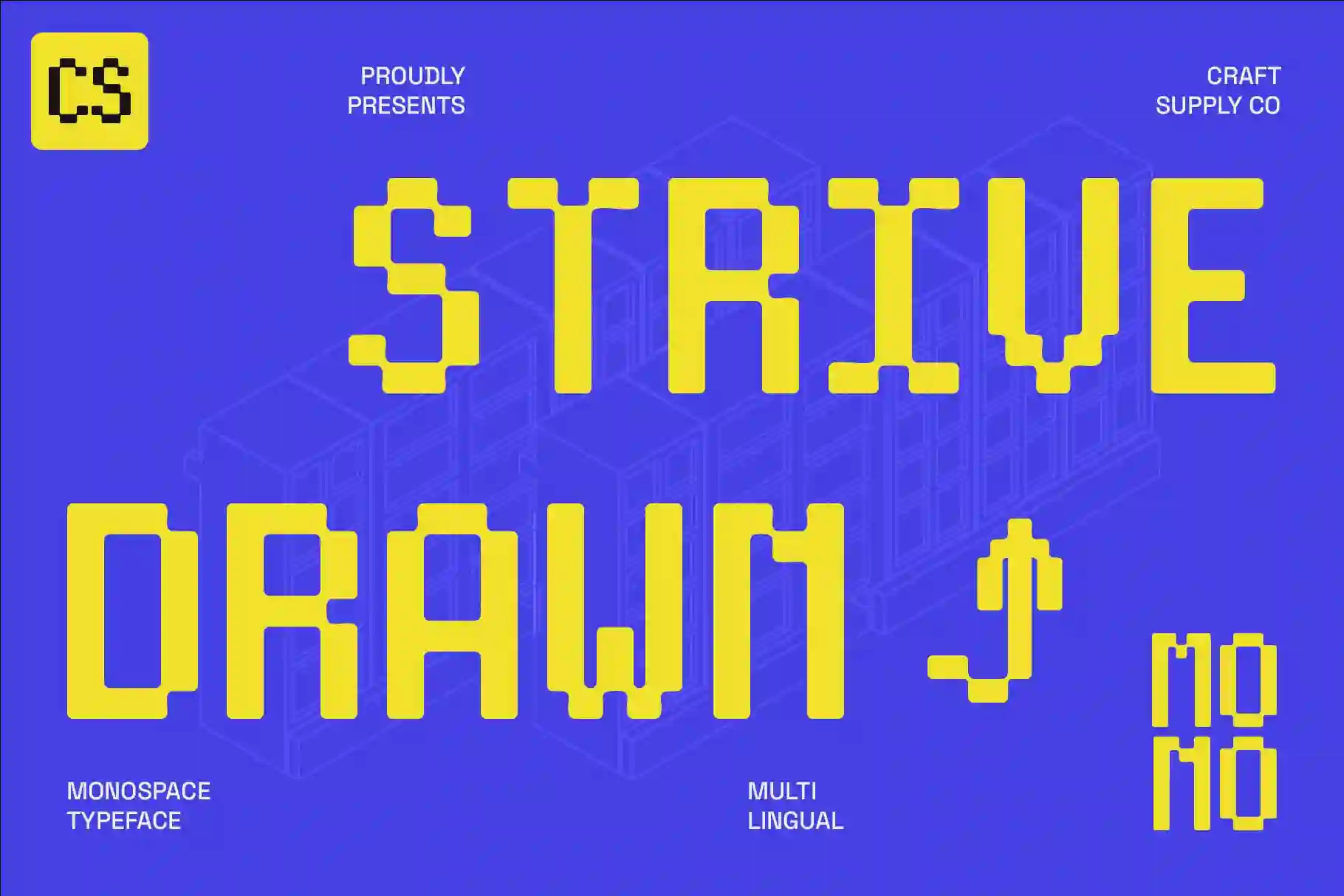
CS Strive Mono Drawn – Monospaced Font with Pixel-Inspired Creativity
Modern Monospaced Design
This is a modern monospaced sans serif font designed with consistent spacing that brings order and balance to every composition. Its structured form echoes the precision of coding and digital systems, making it a strong choice for projects that value clarity and rhythm in typography.
Pixel-Style Inspiration with a Drawn Twist
Taking cues from pixelated aesthetics, this font feels instantly connected to retro digital culture and 90’s game visuals. Yet, the added drawn texture softens the rigid edges, creating an expressive, handmade touch. This unique combination allows the font to remain technical while also radiating warmth and individuality.